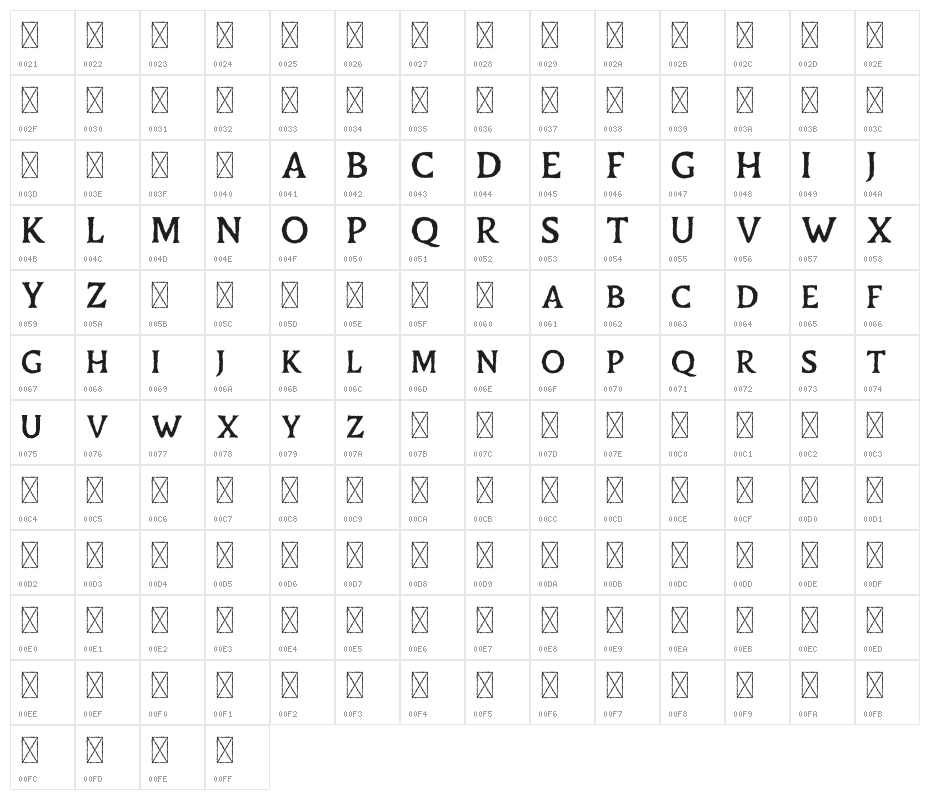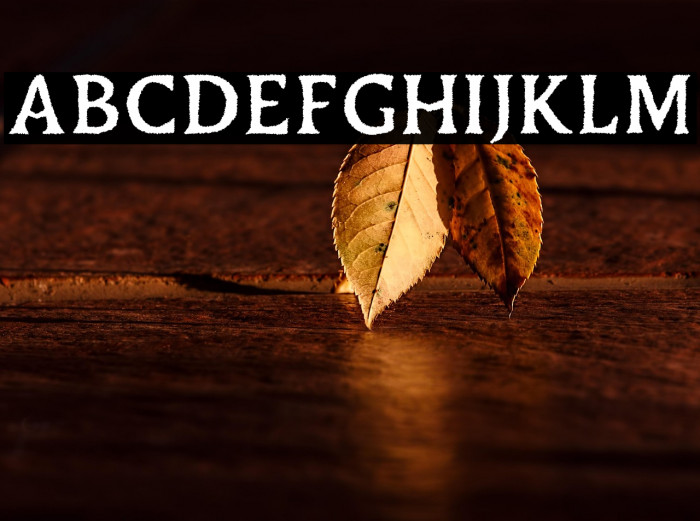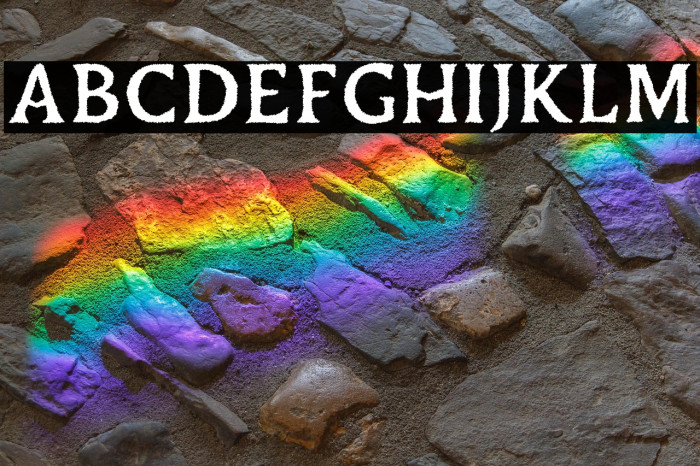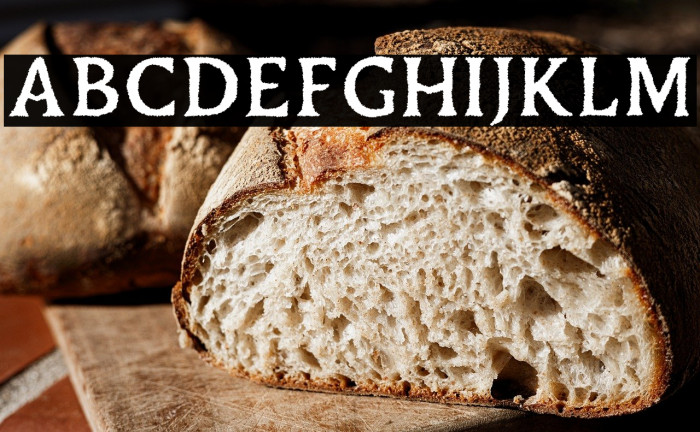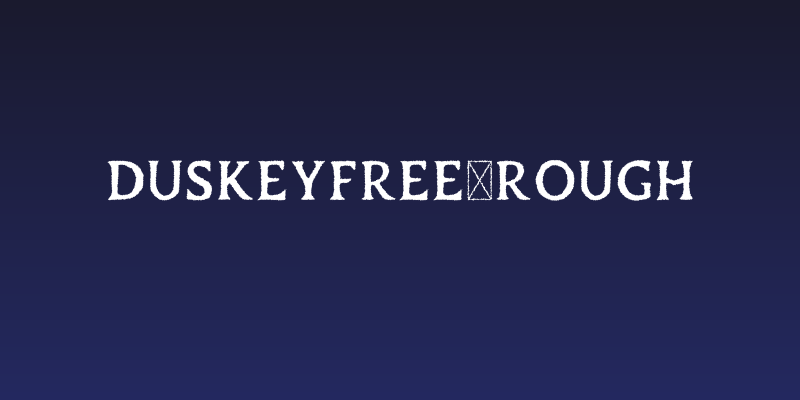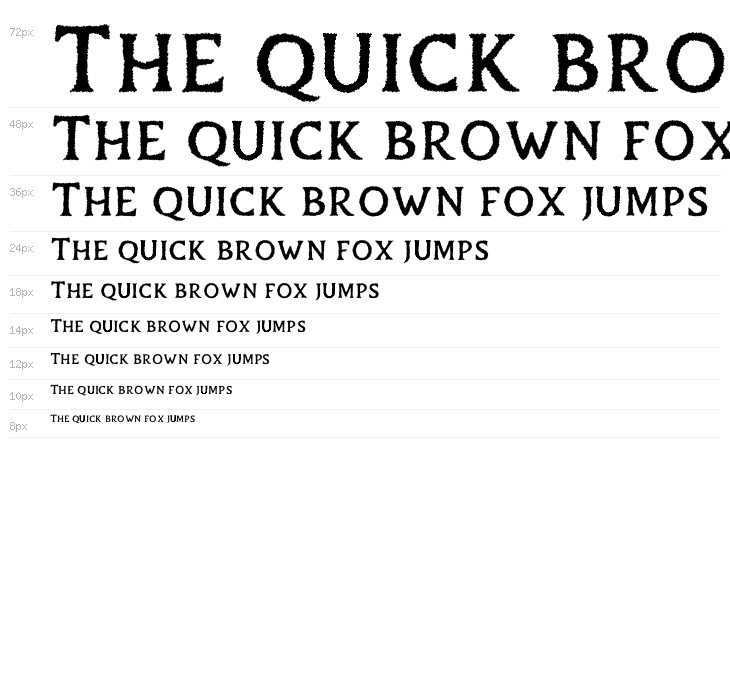
DuskeyFree-Rough Font
DuskeyFree-Rough Description
This font features a rough, textured appearance that gives it a hand-crafted, rustic feel. The characters are bold and slightly irregular, adding to the organic and vintage aesthetic. The uppercase letters are prominent and commanding, making them suitable for attention-grabbing headlines. The texture within each letter mimics a distressed or weathered look, which can add character and depth to any design. This font is ideal for projects that require a touch of authenticity and a handmade vibe.
| Overall Style | Vintage |
| Proposed Projects | Ideal for branding, posters, and packaging that require a rustic or vintage touch. |